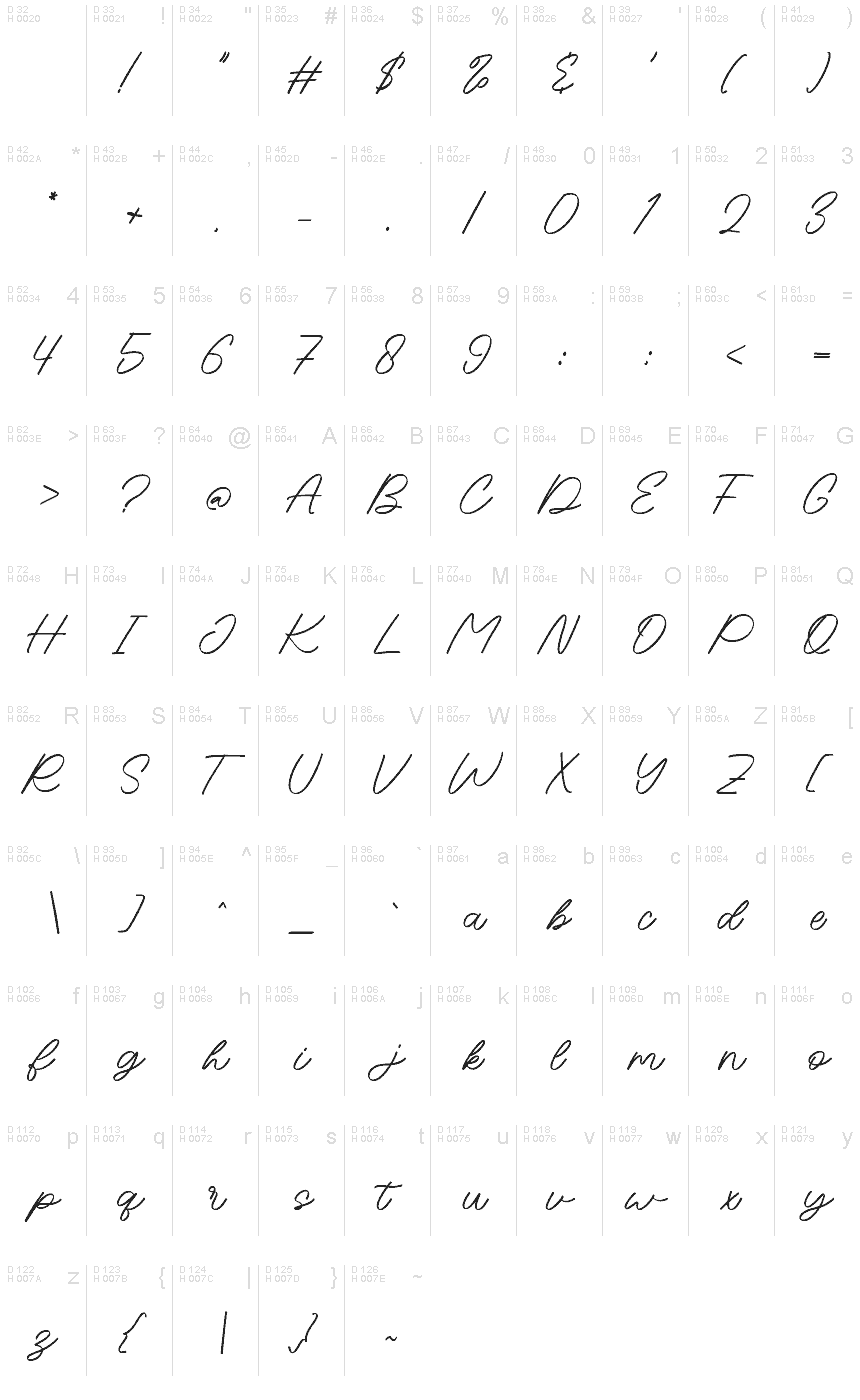
NCL Bique Kisty
NCL Bique Kisty font designed by Enxyclo Studio presents an elegant and light handwritten script that achieves a sophisticated aesthetic with beauty in flow. The font has the qualities of modern handwriting with contemporary features allowing it to set above more traditional scripts associated with older aesthetics. A primary use for this free handcrafted font would include branding where style is everything.
Weddings invitations, events posters, photography, social media accounts, business cards are further areas where NCL Bique Kisty will upgrade an art project. This light fonts design finds exquisite use in food-item menus designed for cafes and restaurants.